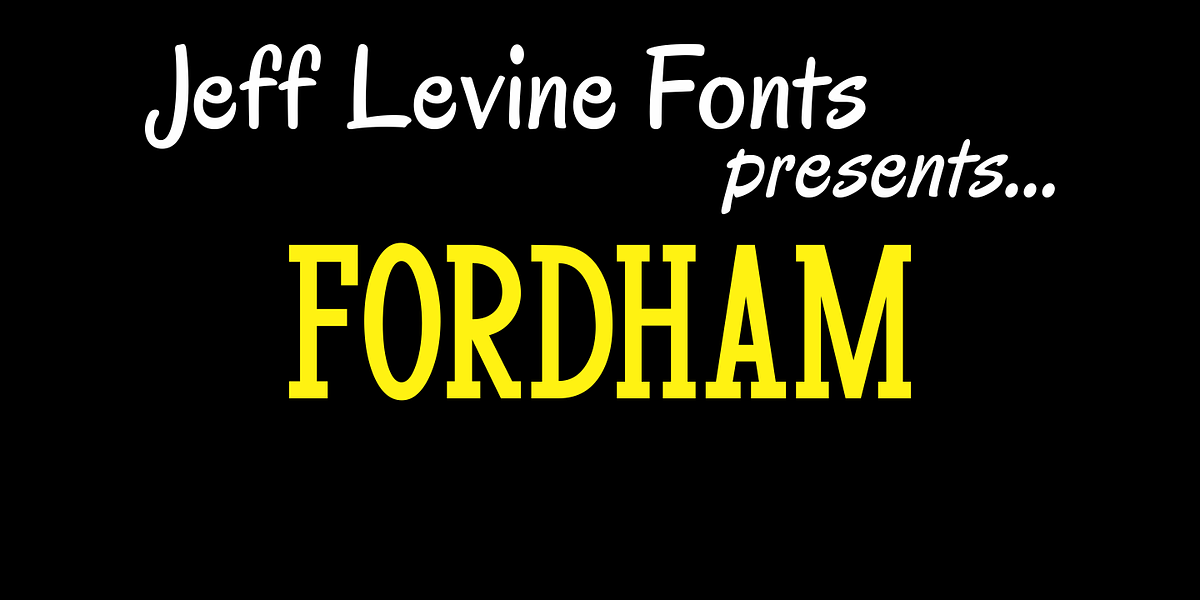
Fordham JNL
Fordham JNL is a slab serif typeface in regular and oblique versions that has a casual, informal look reminiscent of 50s and 60s-era ad headlines.